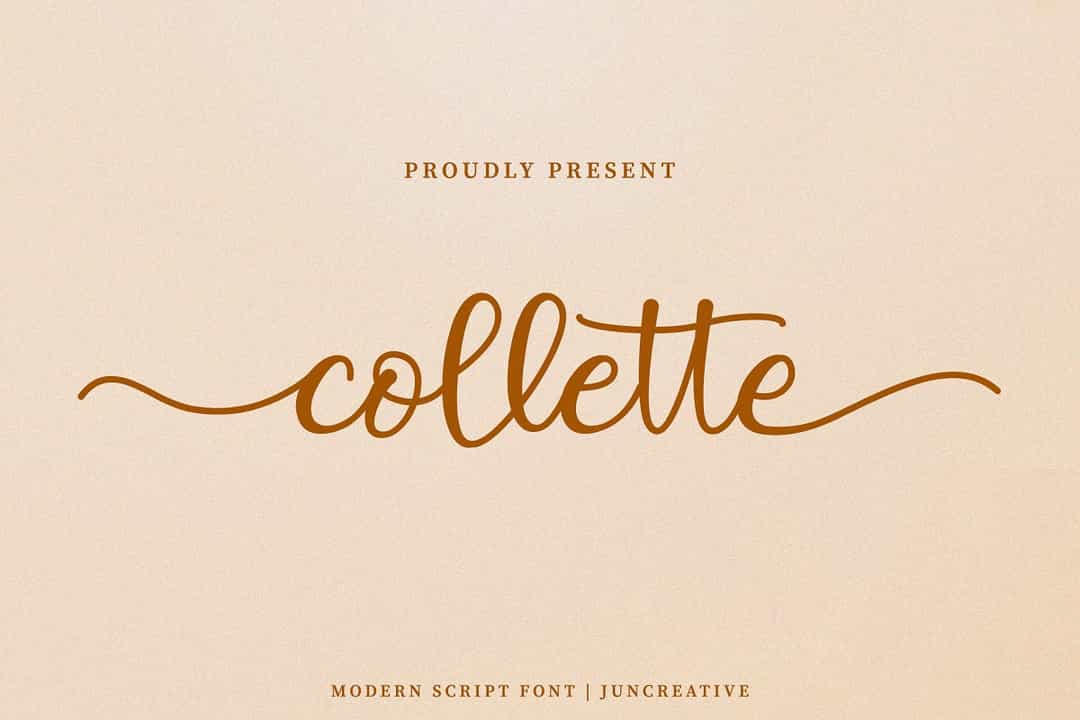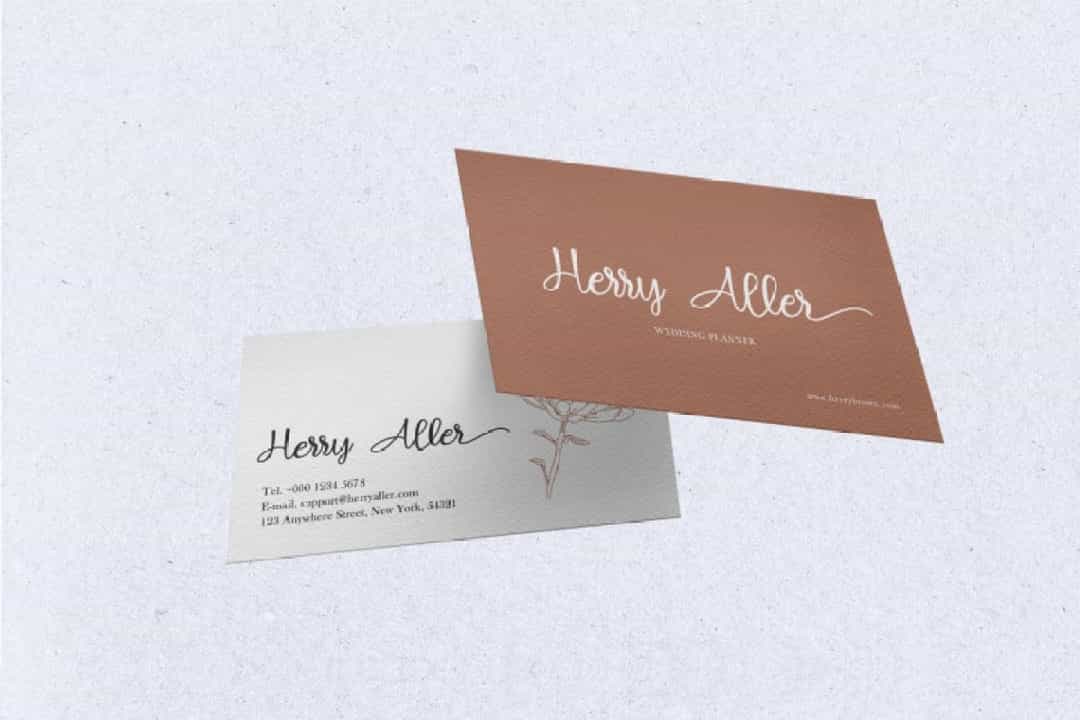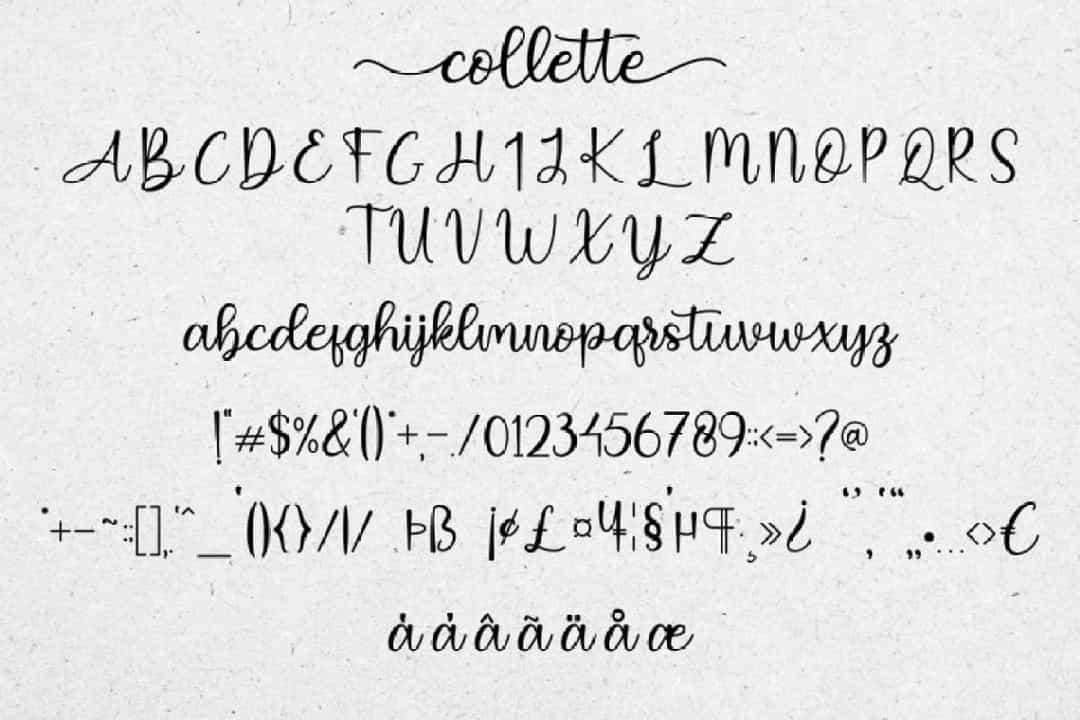
Collette is a natural calligraphy font with an elegant yet unassuming style that’s simple, thin and smooth for use in any design project. PUA encoded, its font offers access to its full array of glyphs, swashes and characters quickly!